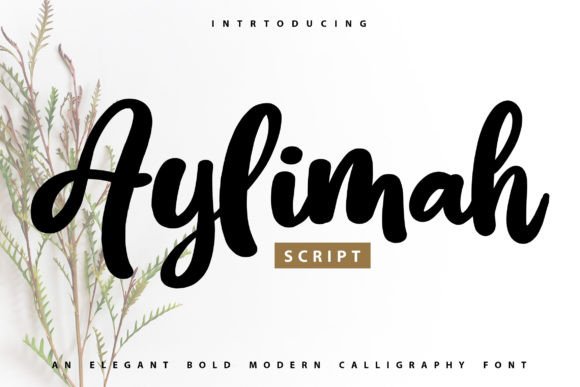
The Magic of Aylimah Font: Elevate Your Designs with Elegance
Have you ever been in the middle of a design project, and suddenly, you’re stuck on finding the perfect font? I recall a particularly frustrating experience while working on a wedding invitation design. My client wanted something elegant, yet modern, and I was determined to deliver. That’s when I stumbled upon the Aylimah font, and it completely transformed my design. In this article, I’ll share my journey with Aylimah, its features, and how you can make the most of this gorgeous calligraphy script font in your designs.
A Personal Review of Aylimah Font
Aylimah is a bold and gorgeous calligraphy script font that has become a staple in my design toolkit. Here’s what I love about it:
- ✨ Elegant and sophisticated: Aylimah adds a touch of luxury to any design.
- ✅ Highly versatile: Suitable for wedding invitations, thank you cards, quotes, greeting cards, logos, business cards, and more.
- 💻 PUA encoded: Easy access to all glyphs and ligatures, making it a joy to work with.
While Aylimah is an excellent font, it’s not without its quirks:
- 🤔 Limited use in very formal or traditional designs: Aylimah’s bold and modern style might not fit every design brief.
- ⚠️ May require some learning curve: To get the most out of Aylimah’s OpenType features, you might need to familiarize yourself with glyphs and stylistic alternates.
The Story Behind Aylimah Font
Aylimah was designed with the intention of creating a beautiful, modern calligraphy script font that could elevate any design. The designer aimed to craft a font that would be both elegant and versatile, suitable for a wide range of applications. With its PUA encoding and extensive OpenType features, Aylimah has become a favorite among designers and crafters.
| What is Aylimah font best used for? | Aylimah is ideal for designs that require an elegant, handwritten touch, such as wedding invitations, thank you cards, quotes, and greeting cards. |
| Is Aylimah font suitable for body text? | While Aylimah is a beautiful font, it’s better suited for headlines, titles, and short paragraphs due to its bold and decorative nature. |